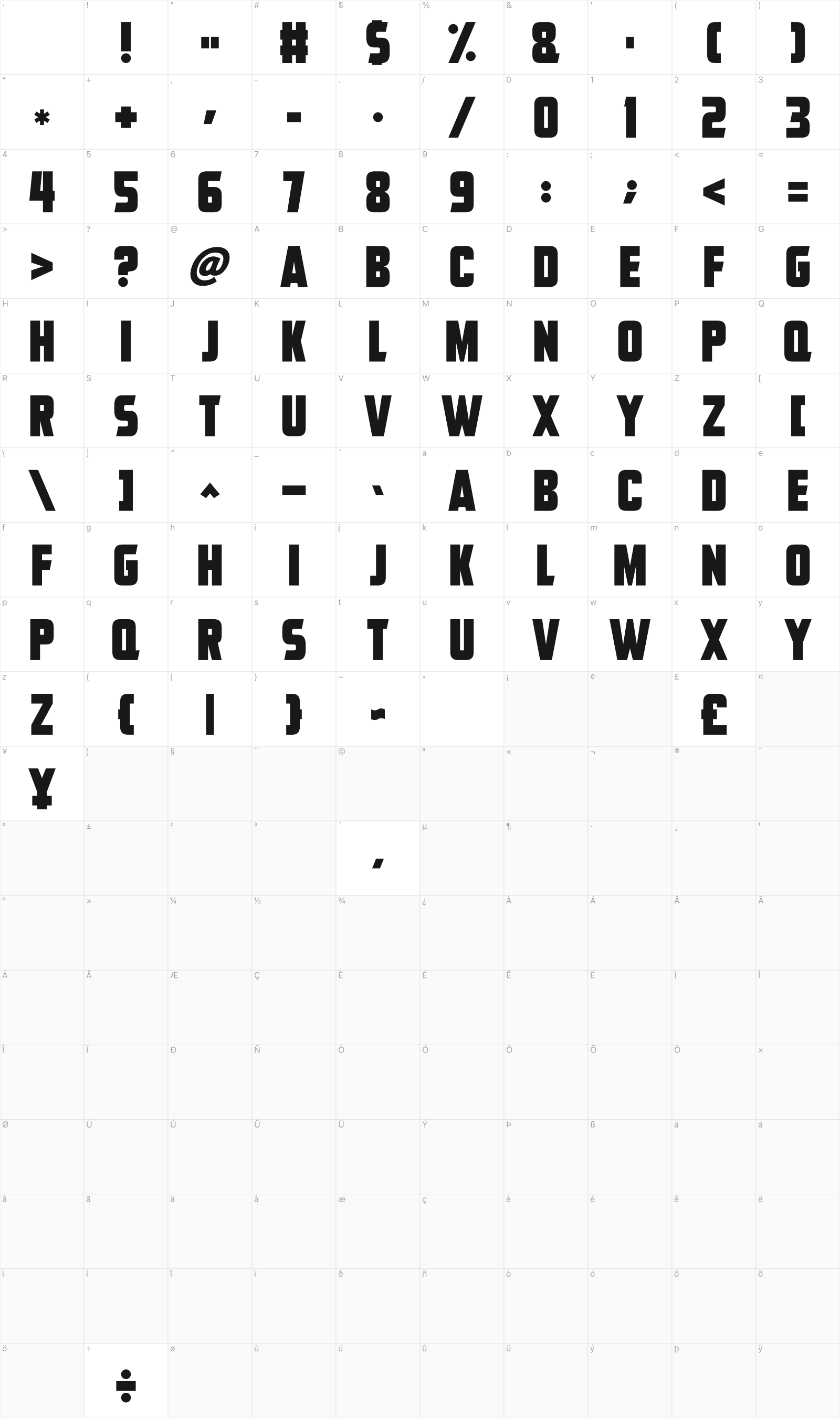
This Is The Future
by Darrell Flood
This Is The Future is a heavy condensed sans with a retrofuturist attitude, built from thick squared strokes with subtle notched joints that hint at science fiction title cards from the 1970s and 80s. Its extreme weight and tight spacing create a dense, imposing mass at large sizes. It works naturally for action-oriented headlines, game titles, movie posters, and anywhere that needs blunt visual force.